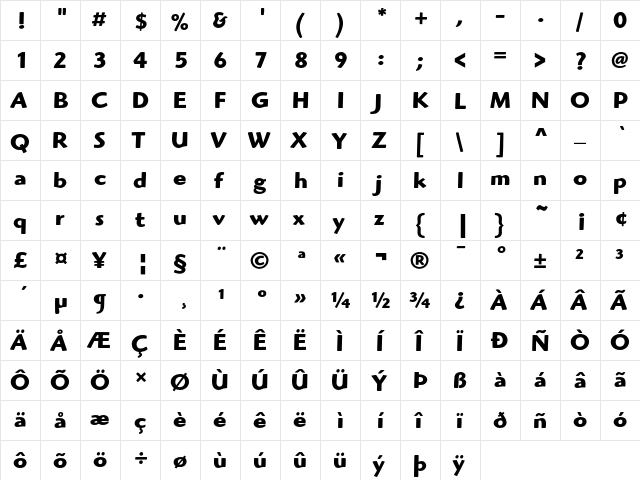
ITC Highlander Bold
Design Context for ITC Highlander Typeface
ITC Highlander is a composed and adaptable typeface that performs quietly and consistently across a wide range of design contexts. The heavy weight commands attention and anchors typographic hierarchies.
Pro Tip: Use ITC Highlander in both headline and body roles to test its range before committing to a single application.